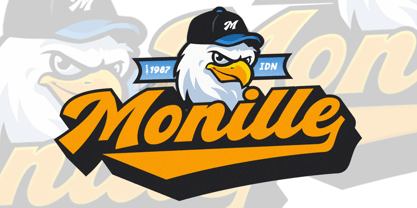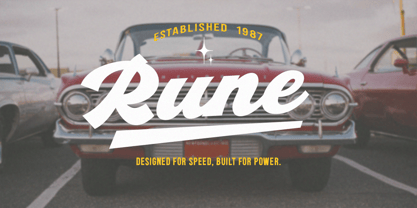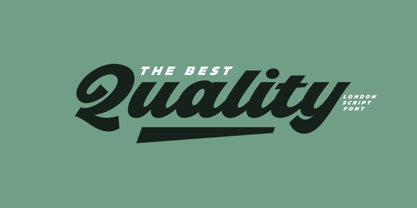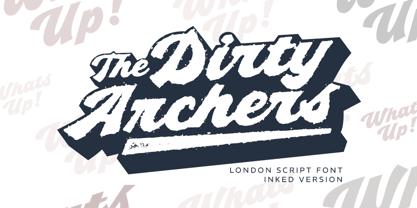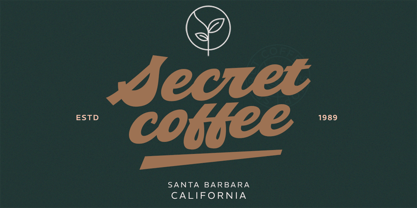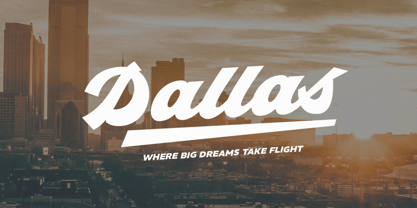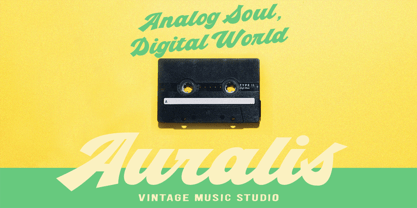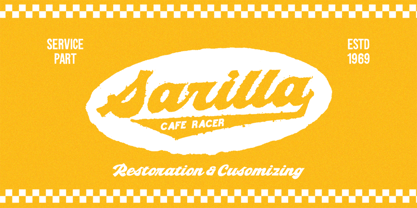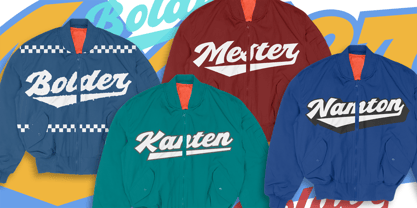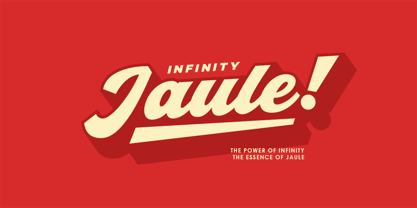
London Script
by Rochart
The London Script Font Family was designed by Rochadi Sudarma and published by Rochart. London Script contains 4 styles and family package options.
London Script is a carefully crafted retro-inspired script font that blends vintage charm with modern versatility. With bold, flowing letterforms and dynamic stroke variations, this typeface exudes confidence, elegance, and nostalgia—perfect for branding, logos, and impactful design projects.
This font family includes multiple stylistic options to enhance creative expression:
• Clean & Rough Versions – offering a choice between a polished or textured look.
• 12 Extra Swashes – adding decorative flourishes for a more refined touch.
• Outline & Extrude Versions – creating depth and dimension for a striking visual effect.
With its distinctive retro appeal and adaptability, London Script is ideal for vintage-inspired projects, streetwear branding, and designs that require a bold yet timeless typographic identity.